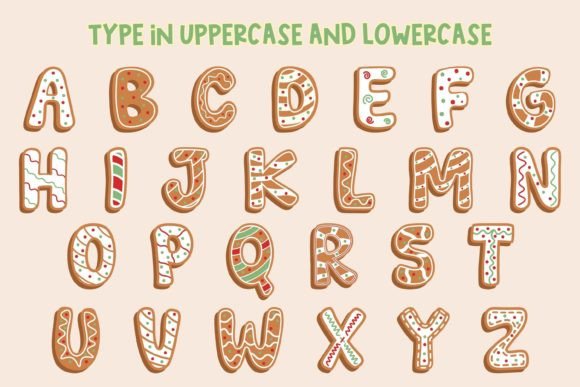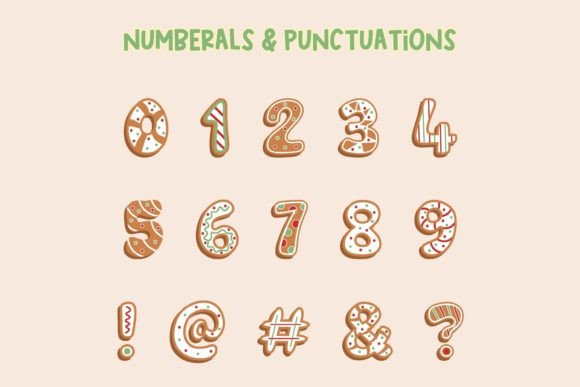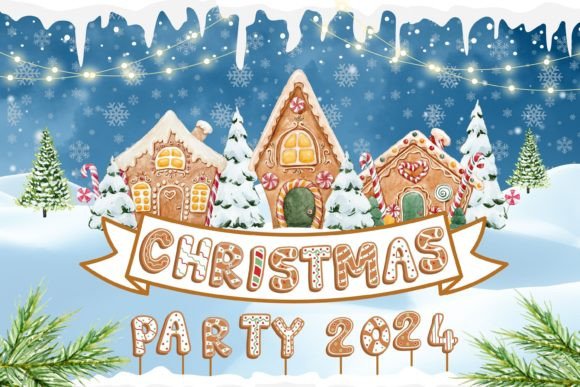
Introducing Christmas Gbread: The Ultimate Color Font for Festive Designs
Are you tired of using the same old fonts for your Christmas designs? Look no further! We’re excited to introduce Christmas Gbread, a vibrant and playful color font that’s sure to bring a touch of magic to your holiday projects. In this article, we’ll dive into the features and benefits of Christmas Gbread, and explore how it can elevate your designs to the next level.
A Font that Embodies the Spirit of Christmas
Christmas Gbread is more than just a font – it’s an experience. Its captivating character effortlessly melds with various design applications, including t-shirt designs, digital imprints, craft creations, decorative cards, and extensive projects. Whether you’re a designer, crafter, or DIY enthusiast, Christmas Gbread is the perfect addition to your font collection.
Endless Design Possibilities with Christmas Gbread
So, what can you create with Christmas Gbread? The possibilities are endless! Here are a few ideas to get you started:
- T-shirt designs: Create eye-catching holiday tees with Christmas Gbread’s playful and colorful characters.
- Digital imprints: Add a touch of festive cheer to your digital products, such as printable art, planners, and journals.
- Craft creations: Use Christmas Gbread to add a personal touch to your handmade crafts, such as ornaments, gift tags, and cards.
- Decorative cards: Design beautiful and unique holiday cards with Christmas Gbread’s captivating character.
- Extensive projects: Incorporate Christmas Gbread into your large-scale design projects, such as billboards, signage, and advertising campaigns.
Why Choose Christmas Gbread?
With so many fonts available, why choose Christmas Gbread? Here are just a few reasons:
- Unique and playful design: Christmas Gbread’s colorful and whimsical character will add a touch of magic to your designs.
Christmas Gbread is the perfect addition to any designer’s font collection. With its playful and colorful character, high-quality files, and flexibility, it’s the ultimate color font for festive designs. Whether you’re a seasoned designer or a DIY enthusiast, Christmas Gbread is sure to bring a touch of enchantment to your holiday projects. So why wait? Download Christmas Gbread today and experience the magic of this amazing color font!